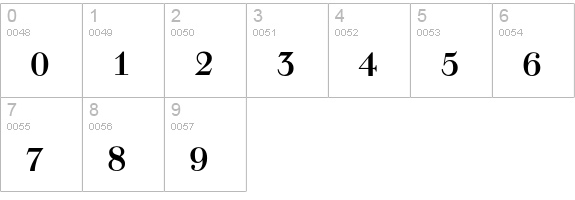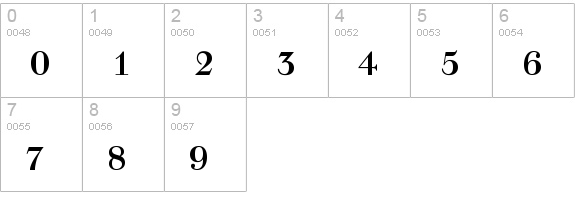
Walbaum Medium Font Details
Walbaum Medium is a balanced, medium-weight variant in the Walbaum typeface family \xE2\x80\x94 well suited to sub-headlines, navigation, and balanced editorial work.
Walbaum Medium is a classic and elegant font that exudes sophistication and style. Its timeless design and balanced weight make it an ideal choice for various design projects, from branding to editorial layouts. The medium weight strikes the perfect balance between readability and impact, making it versatile for both headlines and body text. This font is a must-have for designers looking to add a touch of refinement to their work. Whether you're creating a sleek modern website or designing a luxurious magazine spread, Walbaum Medium will elevate your design to the next level. Best of all, Walbaum Medium is available for free download at FontsMarket.com, making it accessible to designers of all levels. Don't miss out on this opportunity to enhance your design projects with the timeless elegance of Walbaum Medium.